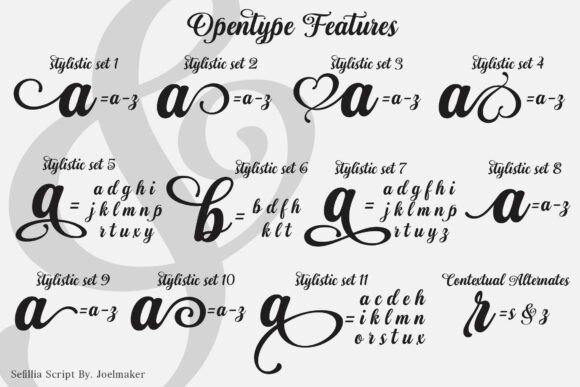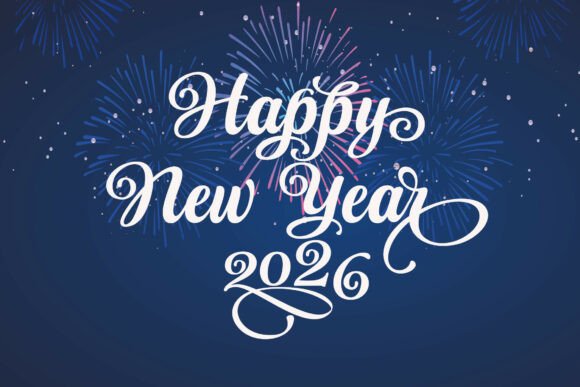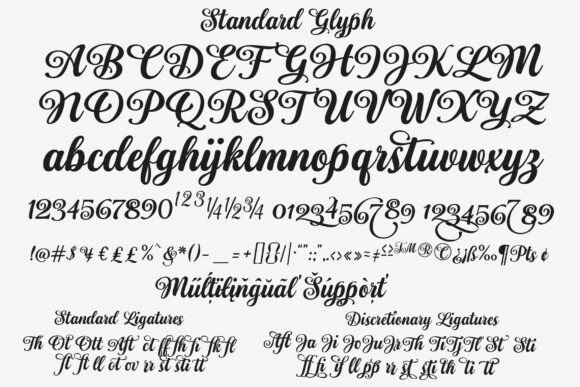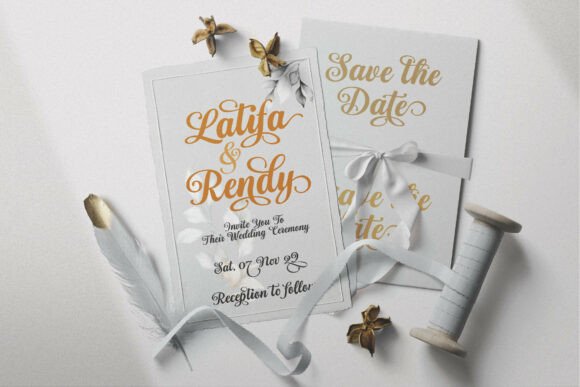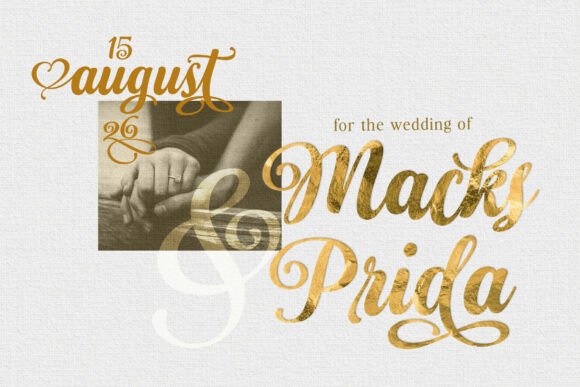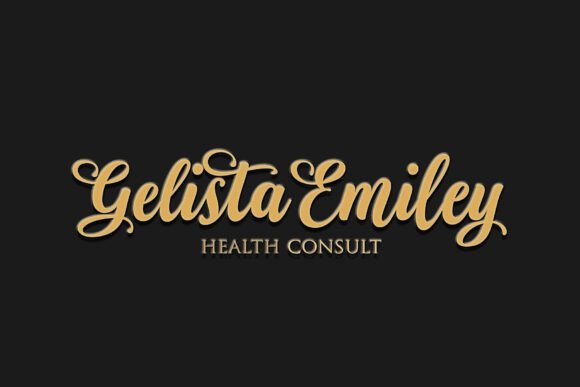
Introduction to Sefillia Script Font
Have you ever found yourself stuck on a creative project, searching for that perfect font to elevate your design? Maybe you’ve browsed through endless options, but nothing seems to capture the essence you’re looking for. That’s where Sefillia Script Font comes in – a game-changing calligraphy script that’s sure to leave a lasting impression.
With its fluid, rhythmic curves and sophisticated flourishes, this premium font is designed to bring a touch of luxury and heartfelt emotion to any project. Whether you’re working on a wedding invitation, high-end branding, or romantic greeting card, Sefillia Script Font is the perfect design resource to help you create something truly special.
As a valuable asset for designers, Sefillia Script Font offers a vast library of stylistic alternates and ligatures, allowing for endless customization possibilities. Plus, its PUA encoding makes it easy to access special characters without needing professional design software – a free download that’s sure to become a go-to design resource.
Key Features of Sefillia Script Font
- Unique, elegant script font design perfect for creative projects and designs.
- Perfect for adding a touch of elegance and sophistication to your design, making it ideal for wedding invitations, quotes, and other creative projects.
Honest Review: Sefillia Script Font
I recently stumbled upon the Sefillia Script Font, and I’m excited to share my thoughts on this design resource. As a designer, I’m always on the lookout for high-quality fonts to elevate my creative projects.
Overall, I’m impressed with the Sefillia Script Font and would recommend it to designers who are looking for a high-quality, elegant script font for their creative projects.
- Perfect for invitations, branding, and other design projects where a touch of sophistication is needed
- Best suited for projects where a traditional, elegant feel is desired
How to Use Sefillia Script Font
Tips for Getting the Most Out of Sefillia Script Font
Use the Sefillia Script Font on a transparent background to create a sense of depth and dimension in your designs. Experiment with different font sizes and colors to achieve the desired effect.
The Sefillia Script Font is ideal for use in wedding invitations, baby shower invitations, and other special occasion graphics. It’s also perfect for creating quotes, posters, and other visual elements that require a beautiful script font.